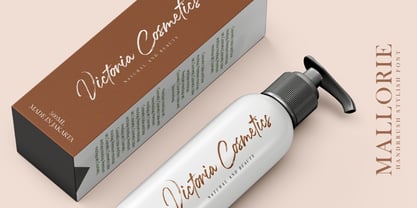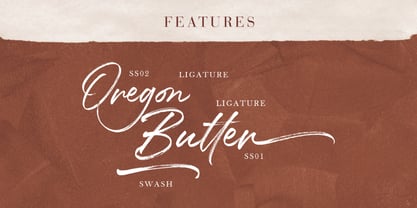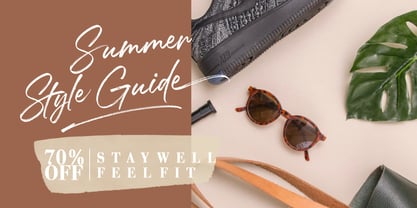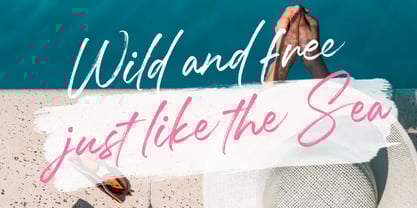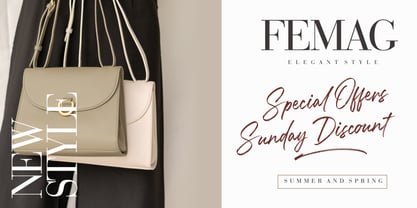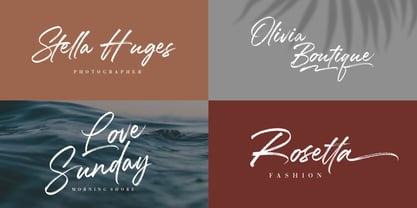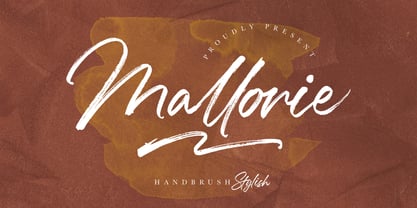
Mallorie
by Creatype Studio
The Mallorie Font Family was designed by Rian Rahardi and published by Creatype Studio. Mallorie contains 1 styles. More about this family
Mallorie is a handbrush font that radiates effortless elegance with a natural handwritten flow. It combines the raw charm of hand-painted strokes with refined curves, creating a perfect balance of energy and sophistication. Ideal for fashion lookbooks, Instagram branding, boutique packaging, photography watermarks, lifestyle magazines, and high-end marketing collateral.
Designers: Rian Rahardi
Foundry: Creatype Studio